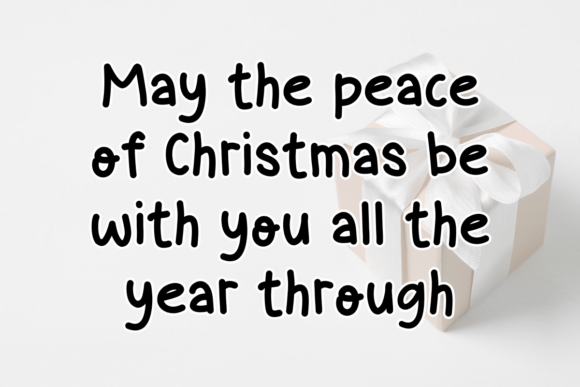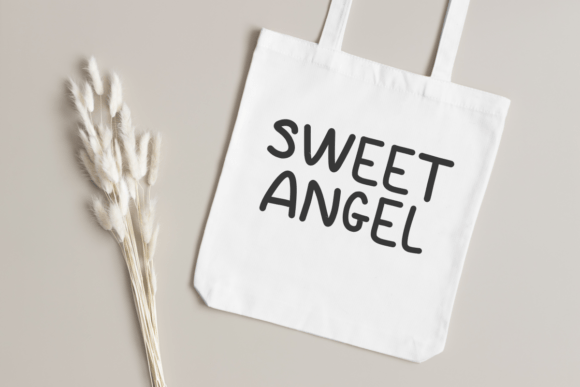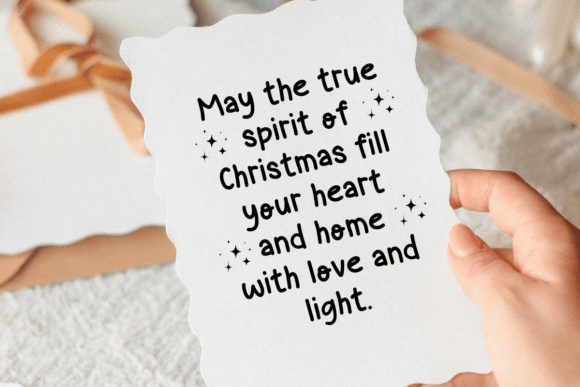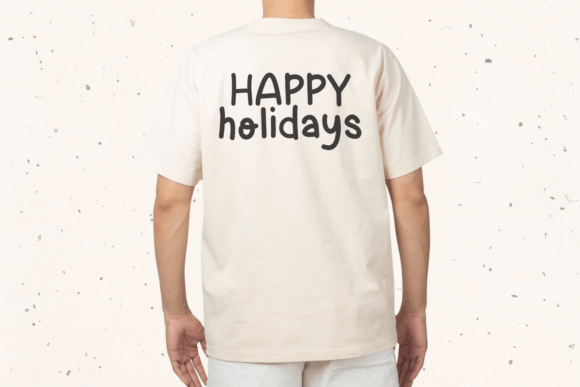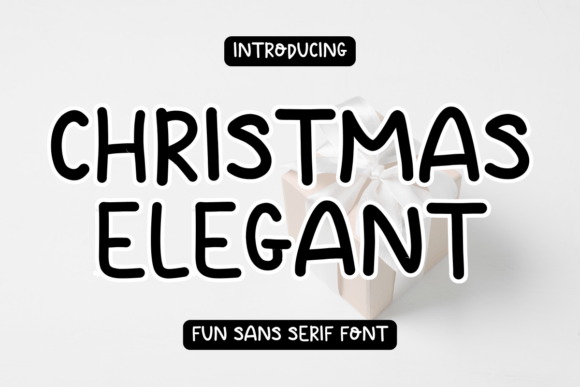
Introducing Christmas Elegant: The Festive Font that Brings Joy to Your Creations
Are you looking for a font that captures the essence of the holiday season? Look no further than Christmas Elegant, a sans serif font that triumphantly embodies the spirit of Christmas. With its whimsical charm and elegant design, this font is perfect for a wide range of creative projects, from Kindle Direct Publishing to journals, note-making, and more.
A Festive Font for Every Creative Project
Christmas Elegant is a versatile font that can be used in various creative projects, making it an excellent addition to your design toolkit. Whether you’re an educator, a crafty individual, or a designer, this font is sure to bring a touch of festive cheer to your work.
Perfect for Educators
For educators, Christmas Elegant is an excellent choice for creating teaching resources that are both fun and engaging. Add a festive flourish to your lesson plans, worksheets, and activity sheets with this delightful font. Your students will love the playful vibe it brings to your teaching materials, making learning a joyful experience.
Breathing Life into Scrapbooks and Planners
Crafty individuals will love using Christmas Elegant to add a touch of yuletide cheer to their scrapbooks and planners. This font is perfect for creating holiday-themed layouts, journal entries, and DIY projects that showcase your creativity. With Christmas Elegant, you can turn your scrapbooks and planners into treasured keepsakes that celebrate the holiday season.
Adding a Playful Vibe to Quotes and Memos
Christmas Elegant is also an excellent choice for adding a playful vibe to quotes and memos. Whether you’re creating inspirational quotes, holiday messages, or simple notes, this font is sure to bring a smile to the recipient’s face. Its whimsical charm makes it perfect for creating fun and engaging textual content that stands out from the crowd.
The Perfect Font for Greeting Cards
For designers and crafters who create greeting cards, Christmas Elegant is a delightful pick. This font turns ordinary greeting cards into holiday keepsakes that recipients will treasure for years to come. With its elegant design and festive charm, Christmas Elegant is sure to make your greeting cards stand out from the crowd.
Endless Creative Opportunities
The possibilities are endless with Christmas Elegant. This versatile font can be used in a wide range of creative projects, including:
- Kindle Direct Publishing
- Journals and note-making
- Teaching resources
- Scrapbooks and planners
- Quotes and memos
- Greeting cards
- Holiday-themed layouts and designs
Why Choose Christmas Elegant?
So, why choose Christmas Elegant for your creative projects? Here are just a few reasons:
- Unique and festive design: Christmas Elegant has a unique and festive design that captures the essence of the holiday season.
- Whimsical charm: This font has a playful and whimsical charm that adds a touch of joy to your textual creations.
- Versatility: Christmas Elegant can be used in a wide range of creative projects, making it an excellent addition to your design toolkit.
- Elegant and sans serif design: This font has an elegant and sans serif design that makes it perfect for creating professional-looking textual content.
In conclusion, Christmas Elegant is a festive and versatile font that is perfect for a wide range of creative projects. With its whimsical charm and elegant design, this font is sure to bring a touch of holiday cheer to your textual creations. Whether you’re an educator, a crafty individual, or a designer, Christmas Elegant is an excellent choice for adding a playful vibe to your work. So, why wait? Try Christmas Elegant today and discover the endless creative opportunities it has to offer!